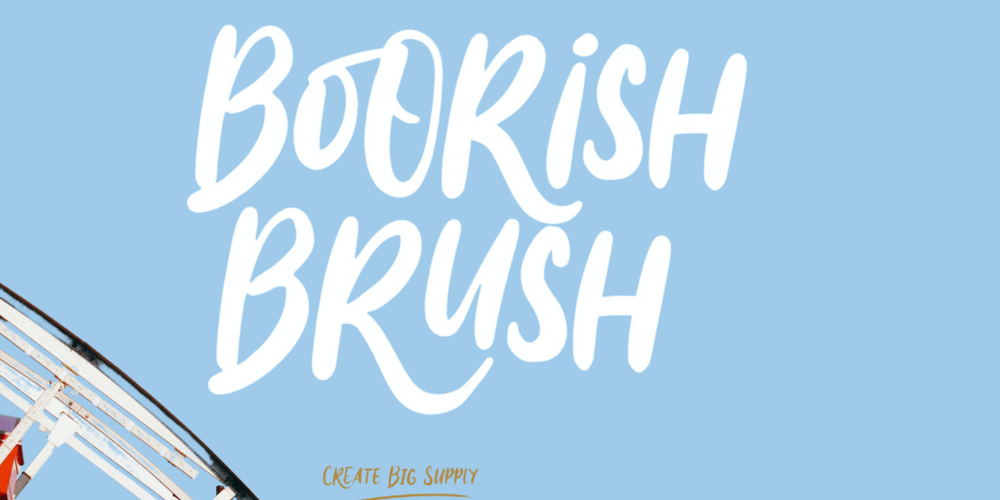
Boorish Brush Font Family was designed by Irpan Maulana and published by Create Big Supply. Boorish Brush contains 1 styles and family package options. Introducing Boorish Brush, a captivating brush font designed with natural strokes for a casual and authentic feel. This font is packed with ligatures that add a touch of spontaneity and naturalness to your projects. Whether you’re designing logos, invitations, labels, magazines, or any other creative endeavor, Boorish Brush is the perfect choice to infuse your work with a laid-back and expressive vibe.Boorish Brush offers both uppercase and lowercase letters, allowing you to create a dynamic interplay of styles and bring versatility to your designs. It also includes numbers and punctuation marks, ensuring all your typographic needs are met. With multilingual support, this font enables you to communicate your message effectively in various languages, expanding your reach to a global audience.Featuring PUA Encoding, Boorish Brush provides easy access to special characters and glyphs, streamlining your design process and allowing you to unleash your creativity without limitations.Embrace the casual elegance of Boorish Brush and elevate your creative projects with its authentic brush strokes. From invitations and labels to magazines and packaging, this font adds a touch of personality and uniqueness to every design.